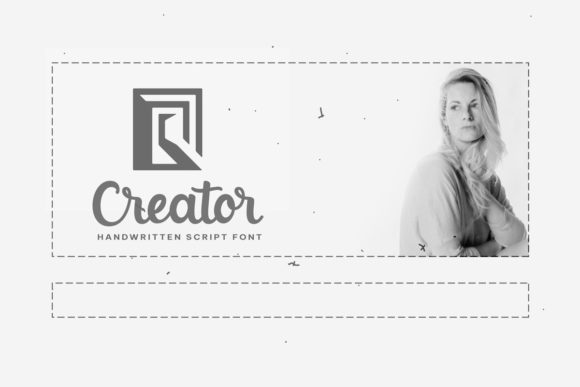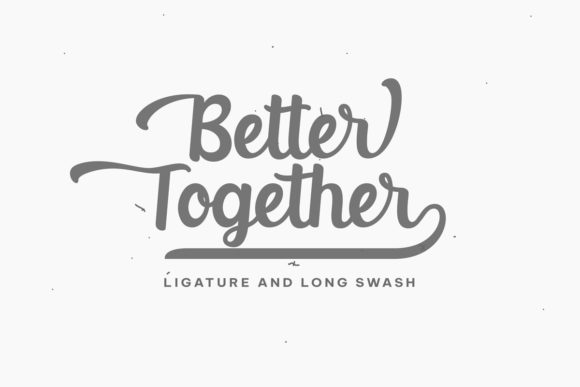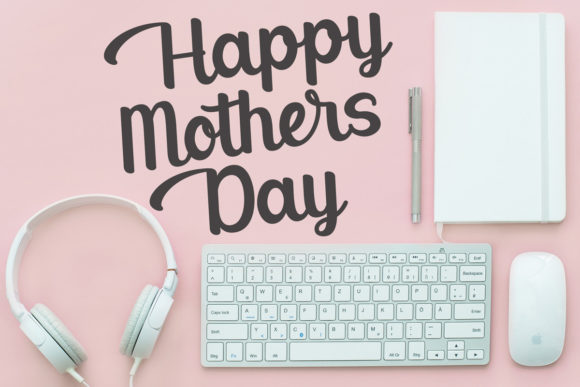
About Creative Script Font
Creative Script is a beautiful and flowing handwritten font. Use it for wall displays, wedding invitations, social media post logos,
advertisements, product packaging, product designs, labels, photography, watermarks, invitations, stationery, and any project that requires impressive typography.